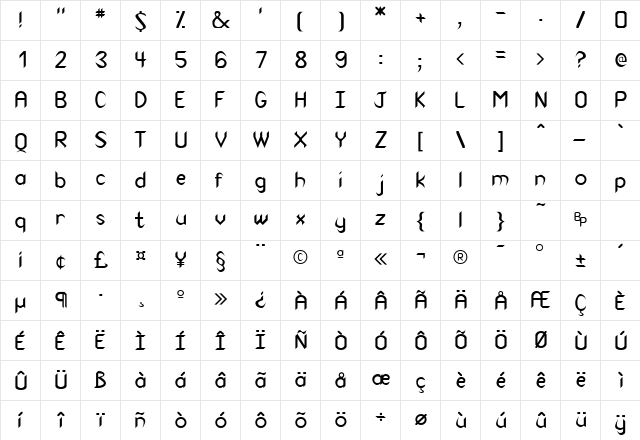
Farmcote Medium Font Preview
Farmcote Medium
Farmcote Medium Font Details
Design Context for Farmcote Typeface
Farmcote offers clean, dependable letterforms without strong stylistic allegiance, making it a practical choice for designers who need flexibility.